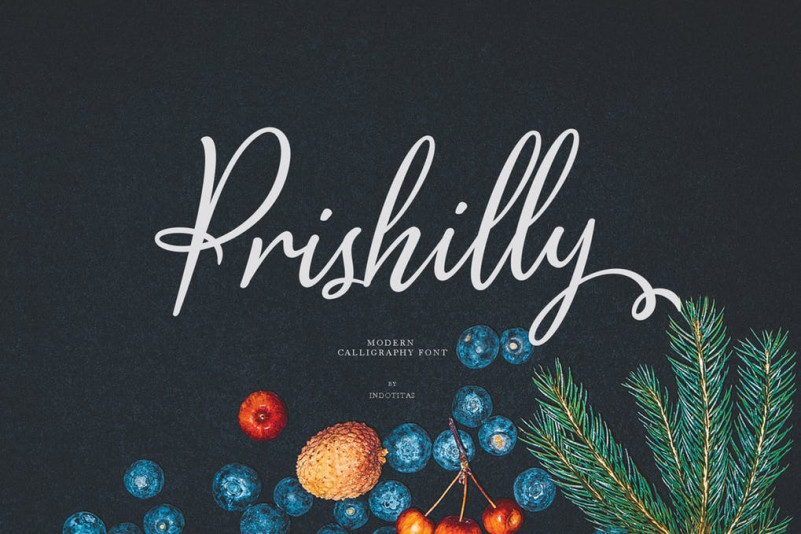
Prishillycreated with modern calligraphy characters. This modern calligraphy font was PUA encoded. Prishilly is a natural calligraphy style that comes with Extended Latin Characters. Prishilly works perfectly for logos, display, product branding, wedding invitation card, stationary, packaging, clothing, flyer, apparel, magazines, brochures, lable, posters, badges, etc.